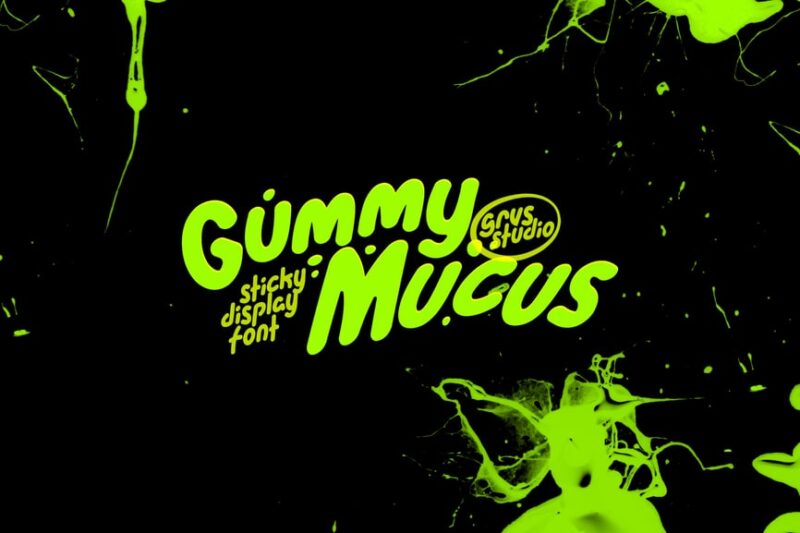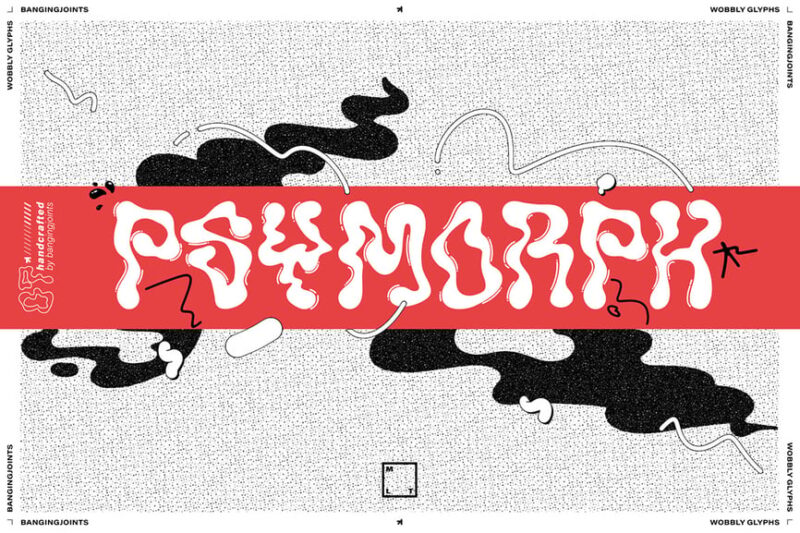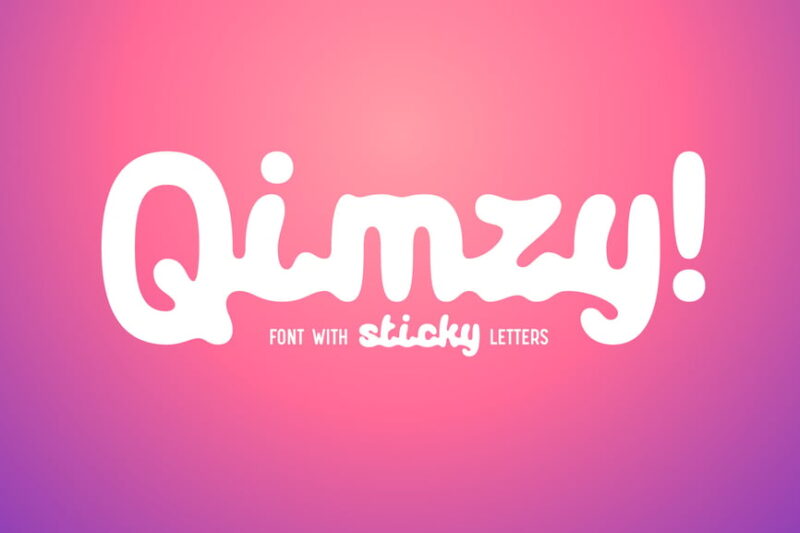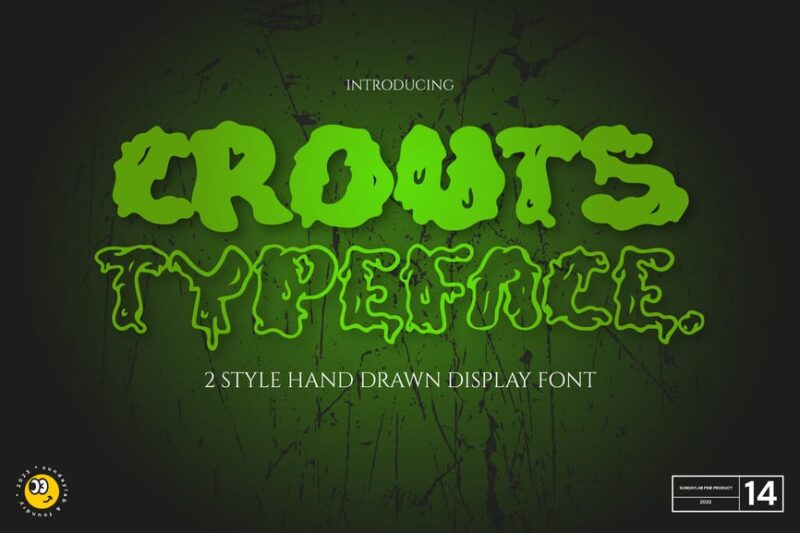
Typography just got slimy – and we’re totally here for it. In the world of design, some fonts drip with personality, and slime fonts are taking that concept quite literally. These ooey-gooey typefaces aren’t just fonts; they’re a full-blown sensory experience that transforms ordinary text into a playground of graphic goo.
What Makes a Slime Font So Spectacular?
Slime fonts are more than just a typographic trend – they’re a visual adventure that captures the essence of childhood wonder, scientific curiosity, and pure design playfulness. These fonts feature letterforms that seem to melt, stretch, and wobble with an organic, almost alive quality.
The Most Oozing Slime Fonts of 2026
Get ready to dive into a collection of fonts that will make your designs drip with creativity. Here are the slimiest, most spectacular typefaces that are taking the design world by storm:
Stinky Slime – Dripping Halloween Font
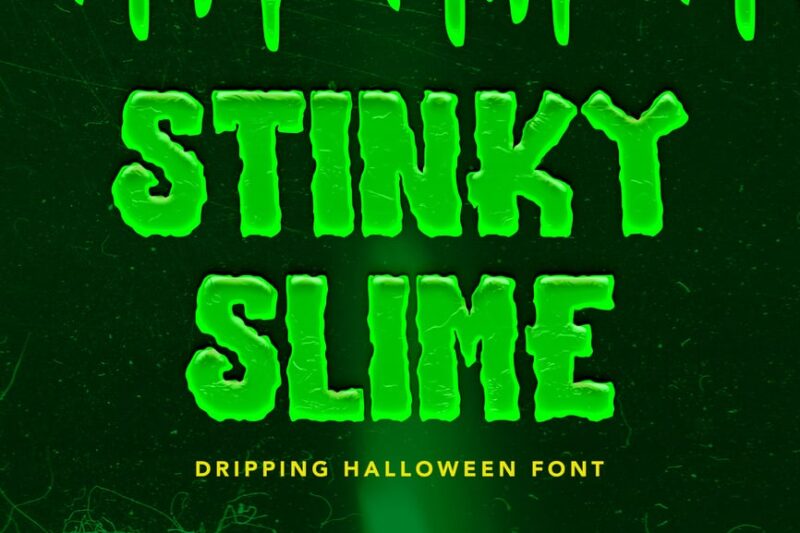
This spooky slime font perfectly captures the essence of dripping ooze with its Halloween-themed design. The decorative typeface features authentic drip effects that make it ideal for horror-themed projects and seasonal campaigns. Graphic designers will appreciate how this slime font adds an eerie, viscous quality to any Halloween design.
Filthy Creation: An Outrageous Slime Font
This outrageous slime font delivers maximum impact with its blood-inspired dripping effects that ooze personality. The decorative design pushes boundaries while maintaining readability, making it perfect for edgy branding and horror aesthetics. Creative professionals seeking bold slime fonts will find this typeface brings raw energy to any project.
Flying Slime – Spooky Font
This enchanting slime font combines spooky elements with handwritten script styling for a magical yet eerie appearance. The scary undertones make it perfect for Halloween designs, supernatural themes, and mystical branding projects. Designers will love how this slime font balances playful script elements with genuinely frightening visual impact.
Slime Drip – Graffiti Melting Font
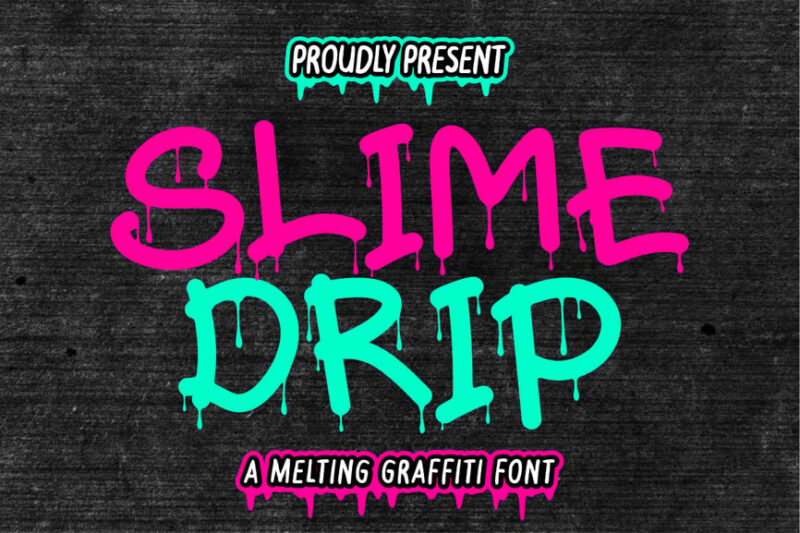
This urban-inspired slime font perfectly merges graffiti aesthetics with melting drip effects for a street-smart design. The spray paint influence gives it authentic urban credibility while the dripping elements add organic flow. Graphic designers working on edgy, contemporary projects will appreciate how this slime font brings raw street energy to their work.
Halloween Horror Zombie Fonts | Melt fonts
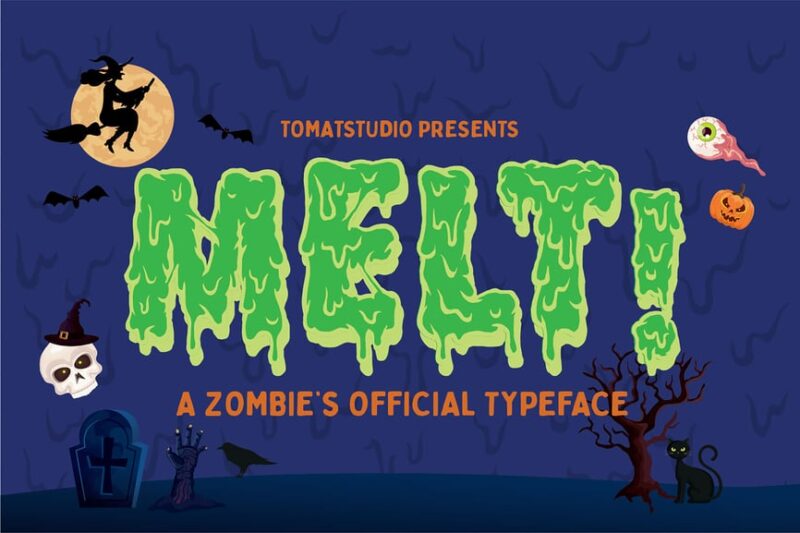
These horror-themed slime fonts feature authentic zombie-inspired melting effects that drip with macabre appeal. The decorative typeface collection offers multiple variations perfect for Halloween projects and horror movie aesthetics. Designers seeking professional slime fonts with genuine horror credibility will find these melt fonts deliver spine-chilling results.
Grims Acid – Liquid Display Font
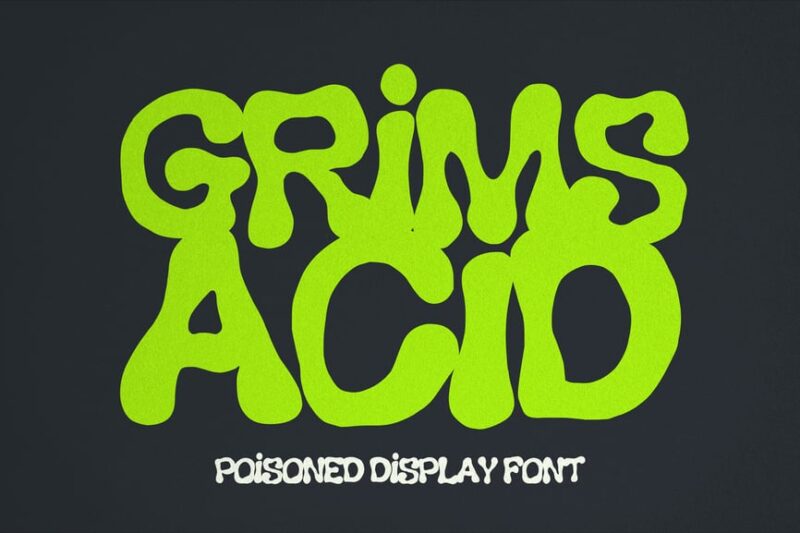
This acid-inspired liquid font captures the corrosive beauty of dissolving typography with Halloween undertones. The ink bleed effects create organic, unpredictable edges that give designs a dangerous, experimental feel. Creative professionals looking for slime fonts with chemical-inspired aesthetics will appreciate this typeface’s unique blend of horror and scientific intrigue.
Slime Yogurt
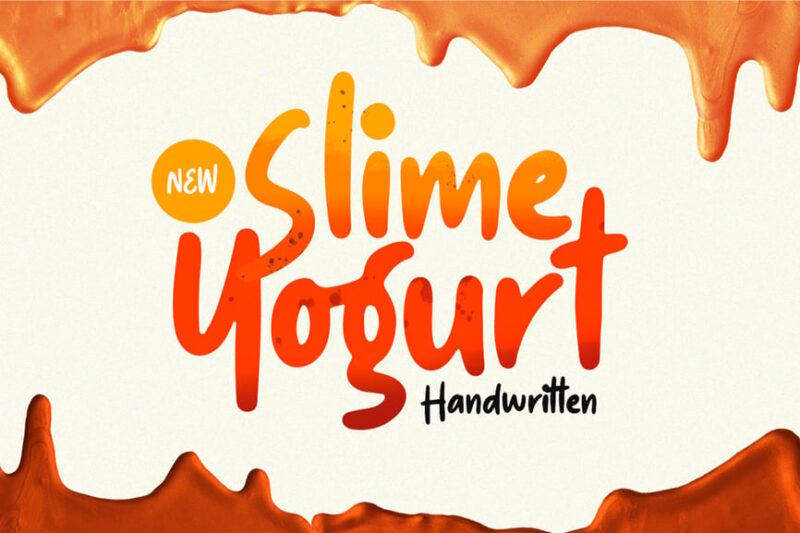
This playful slime font takes inspiration from creamy food textures, creating a deliciously organic handwritten style. The ice cream and yogurt influences make it perfect for food branding, dessert packaging, and whimsical children’s designs. Designers seeking friendly slime fonts that evoke sweetness rather than spookiness will find this script typeface irresistibly charming.
CrossBlood – Horror Font
This horror-themed font incorporates blood-like dripping elements that align with slime font aesthetics while maintaining gothic elegance. The Halloween and pumpkin influences make it seasonally versatile for autumn campaigns and spooky branding. Graphic designers will appreciate how this decorative typeface balances traditional horror elements with modern slime-inspired flowing effects.
Spooky Slime – a Halloween Spooky Typeface
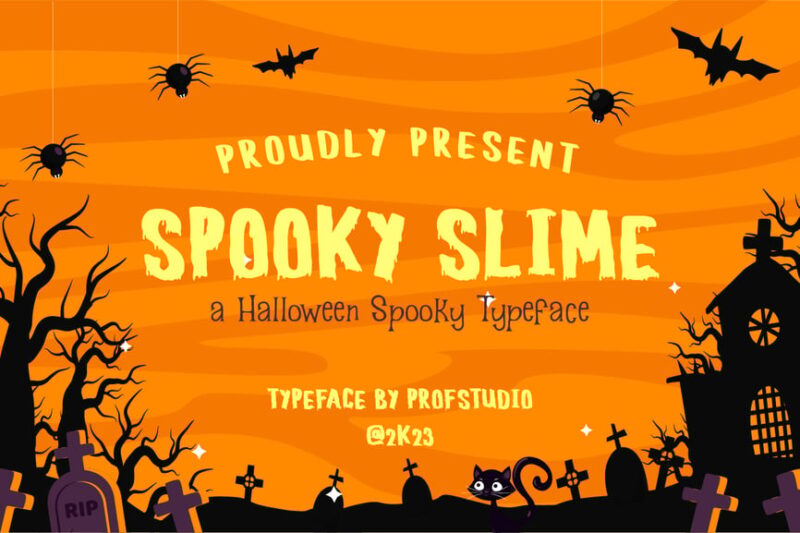
This dedicated Halloween slime font captures the perfect balance of spooky and slimy with authentic oozing characteristics. The decorative design specifically targets seasonal horror projects while maintaining excellent readability for professional applications. Designers specializing in Halloween marketing will find this spooky slime font delivers exactly the eerie, viscous quality their seasonal campaigns demand.
Conclusion: The Future is Fluid
Slime fonts are more than just a typographic curiosity – they’re a celebration of creativity, movement, and the joy of breaking design rules. They remind us that typography can be fun, unpredictable, and absolutely mesmerizing.
So the next time you’re looking to add some ooey-gooey magic to your design, remember: sometimes, the most memorable communication happens when your fonts can literally drip with personality.